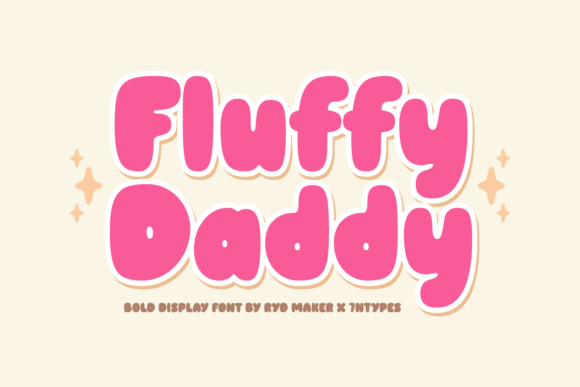
Introduction to Fluffy Daddy Font
Fluffy Daddy is a bold and playful display font that combines soft curves with a chunky, confident style.
πŸ‘€ Author Rydmaker (7NTypes)
Its rounded edges and bubbly letterforms give it a warm, friendly personality, perfect for designs that need to stand out while keeping a fun and approachable vibe Ideal for children’s books, branding, posters, or social media graphics, Fluffy Daddy adds charm and character to any creative project.
Key Features of Fluffy Daddy Font